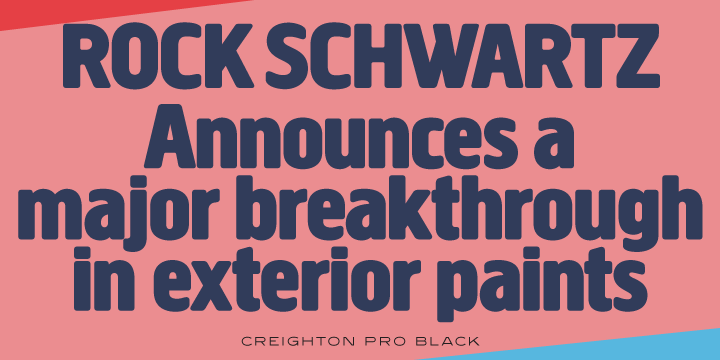
Creighton Pro
Creighton Pro is a unique in its own sense, the typeface has been designed by Steve Jackaman and Ashley Muir. It was their initial joint attempt to craft an appropriate lowercase for Les Usherwood’s ‘Elston’ typeface. The lettering was based on a few characters from an old German typeface refered to as Hermes Grotesque (Woellmer, … Read more